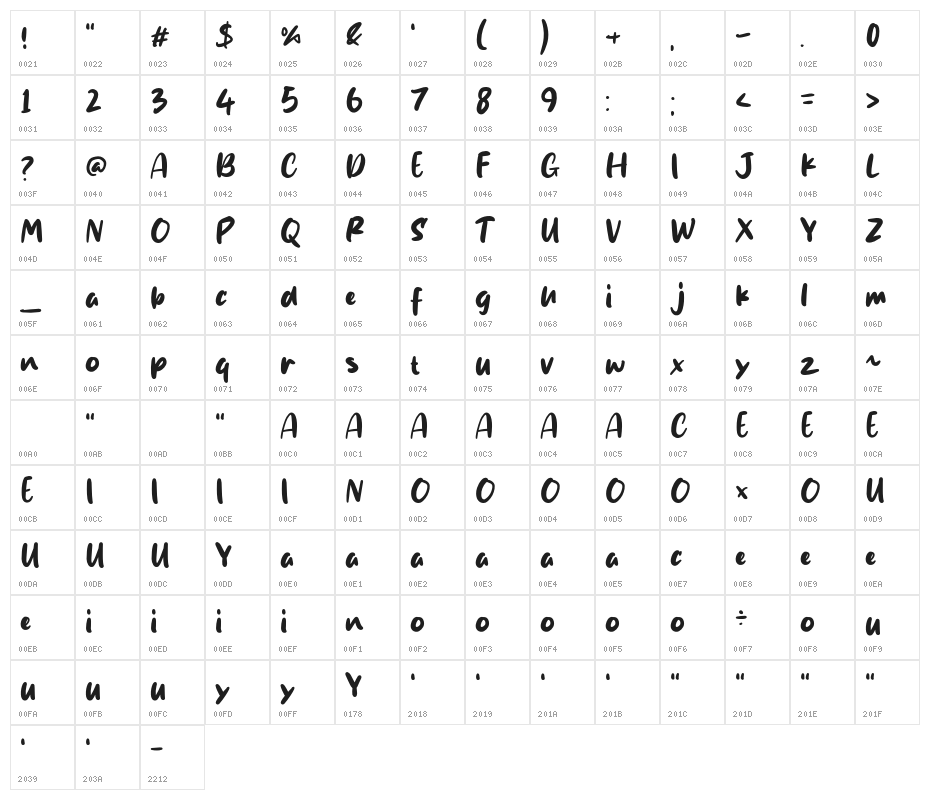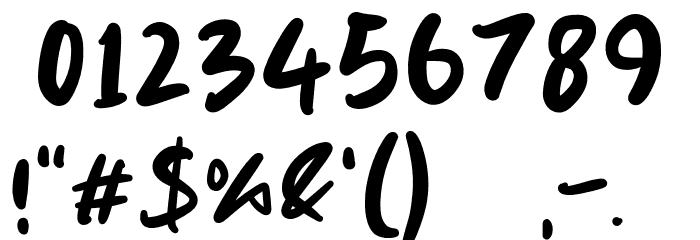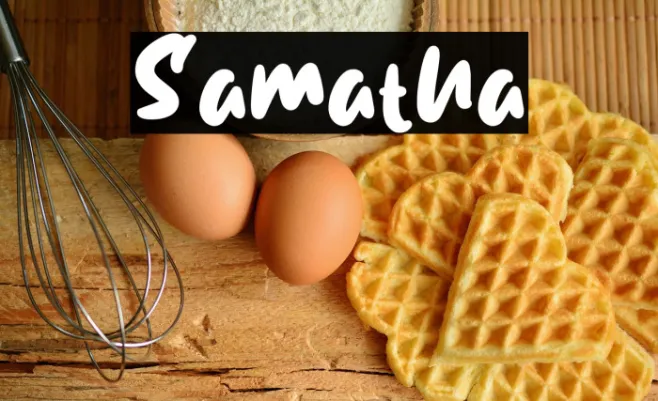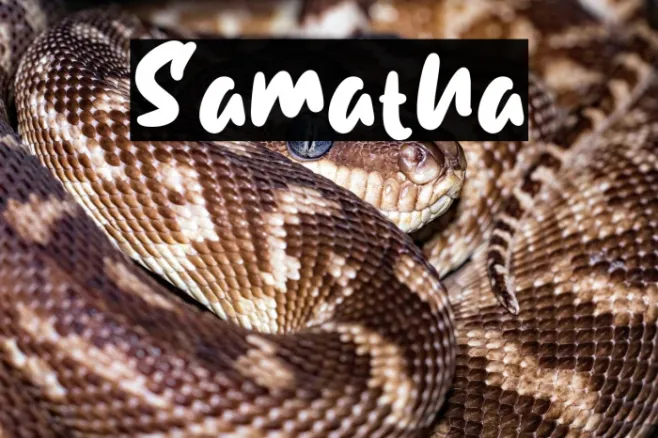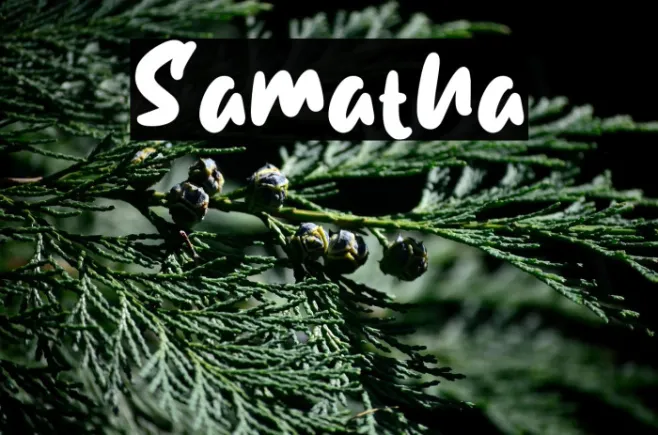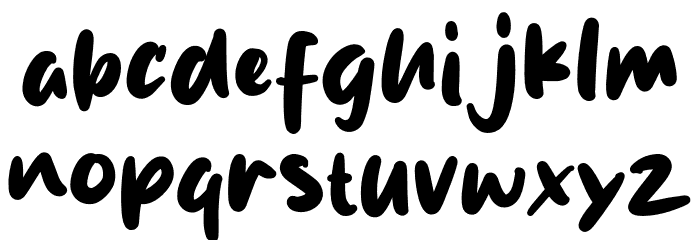
Samatha Font
Samatha Description
This font features a bold and expressive handwritten style, characterized by its fluid and dynamic strokes. The letters are slightly slanted, giving a casual and informal appearance. The uppercase and lowercase letters are well-balanced, maintaining a consistent flow throughout. Numbers and special characters are designed to match the playful and energetic vibe of the alphabet. The overall look is modern and approachable, making it suitable for a variety of creative projects.